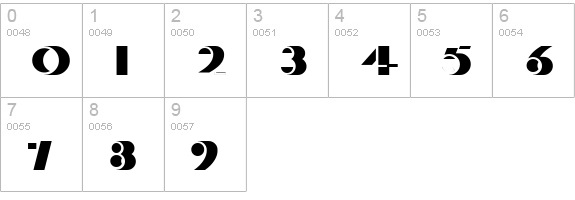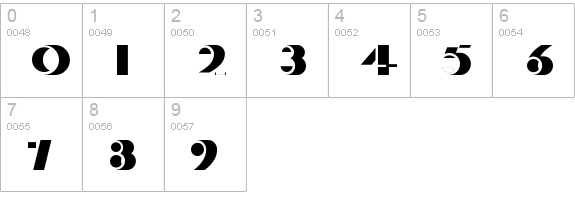
Le Film Shadow Font Details
Le Film Shadow font is a stunning display typeface that exudes elegance and sophistication. Its sleek and stylish design is perfect for creating eye-catching headlines, titles, and logos. The font features a unique shadow effect that adds depth and dimension to your designs, making them truly stand out. What sets Le Film Shadow font apart is not just its striking appearance, but also the fact that it is available for free download at FontsMarket.com. This means that you can easily access this beautiful font and use it in your projects without any cost. Whether you're working on a poster, website, or branding project, Le Film Shadow font is sure to elevate your design and make a lasting impression. Download it for free today and unleash your creativity with this exquisite typeface.